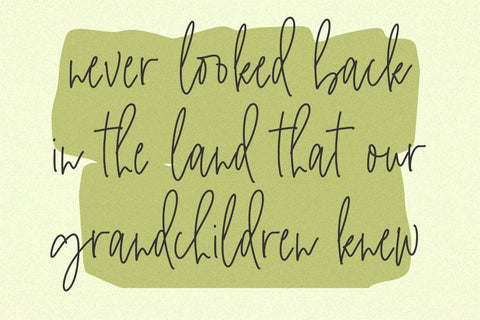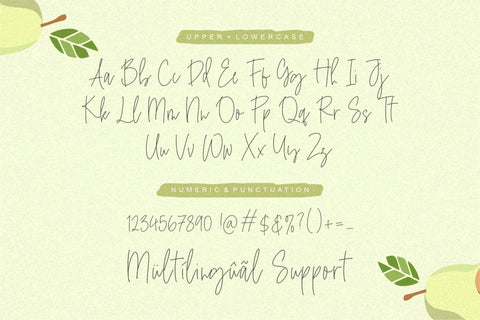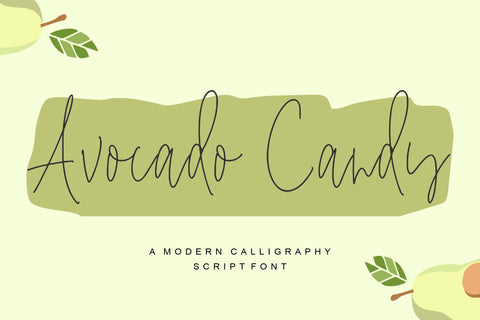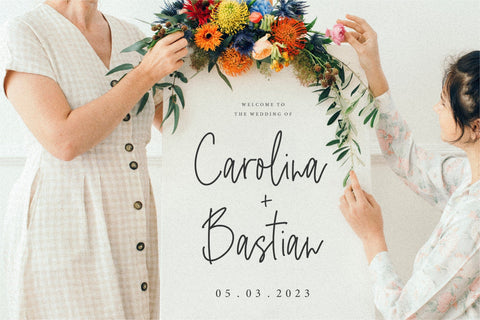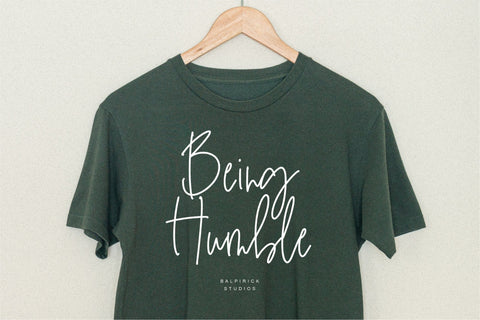
Avocado Candy Font
Avocado Candy - a Modern Monoline Script Font that's clean, elegant and perfect for a range of design projects! With its smooth, effortless lines and understated sophistication, this font is the perfect choice for those who want a modern look that's still timeless in its appeal.
Crafted with precision and care, this font is incredibly versatile and can be used for a range of design projects, including logos, branding, invitations, packaging, and more. With its simple yet refined aesthetic, it's sure to make a lasting impression on anyone who sees it.